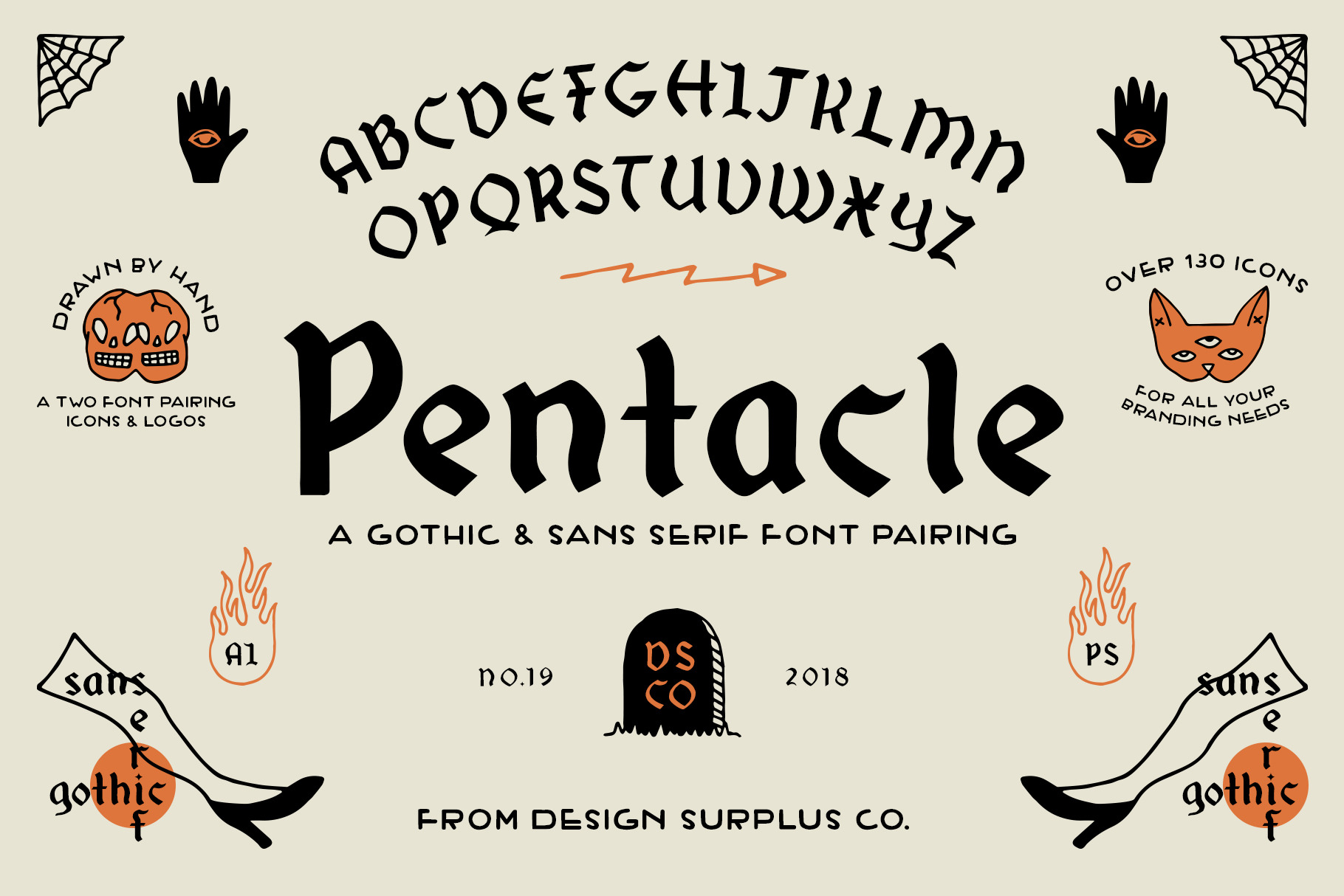
Pentacle Font
Pentacle is a brand new font pairing from Design Surplus with over 130 eerie, apothecary inspired icons. Gothic and sans serif, the Pentacle fonts work perfectly together and can also stand alone.